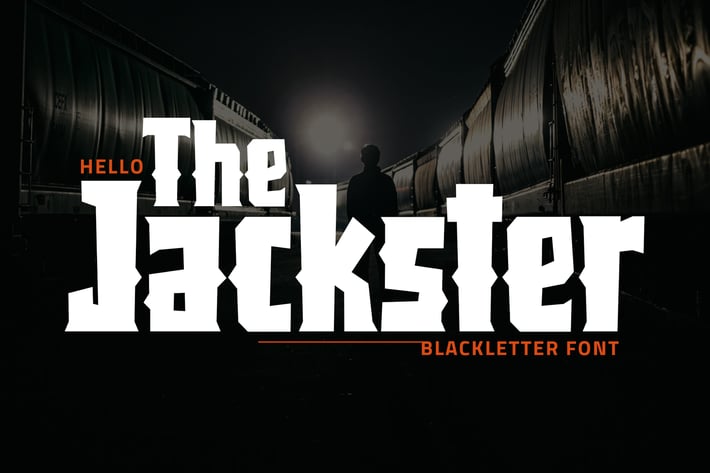
Jackster - Blackletter Font
Introducing Jackster, bold and blackletter font. You can use and enjoy Jackster for anything needs or your projects.
And this font perfect for logo, packaging, magazine, sport, poster, apparel, band logo, apparel, book cover, poster quotes, greeting cards, and advertising.